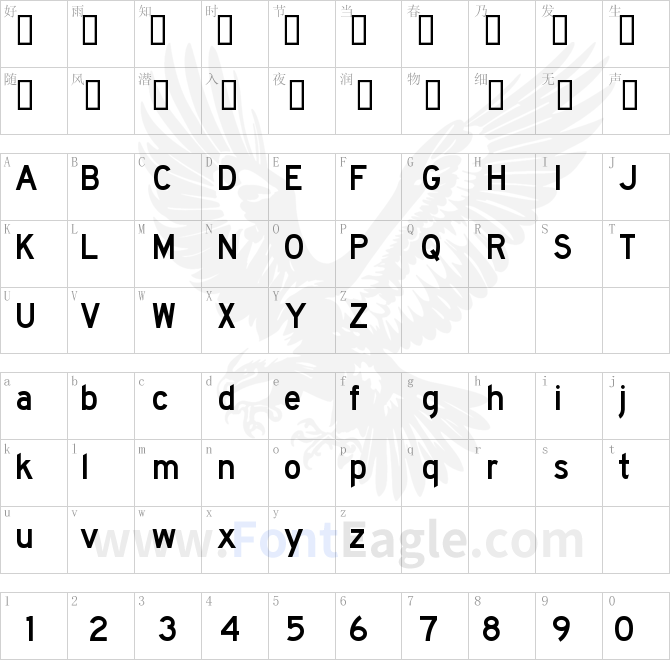
Highway-Gothic is a great font, widely used in graphic design, single-page menu design, poster design and other fields, and is deeply loved by designers.Highway-Gothic download.